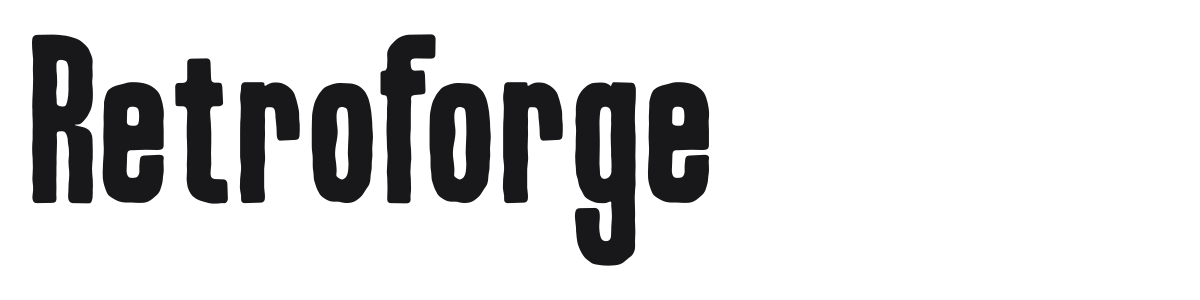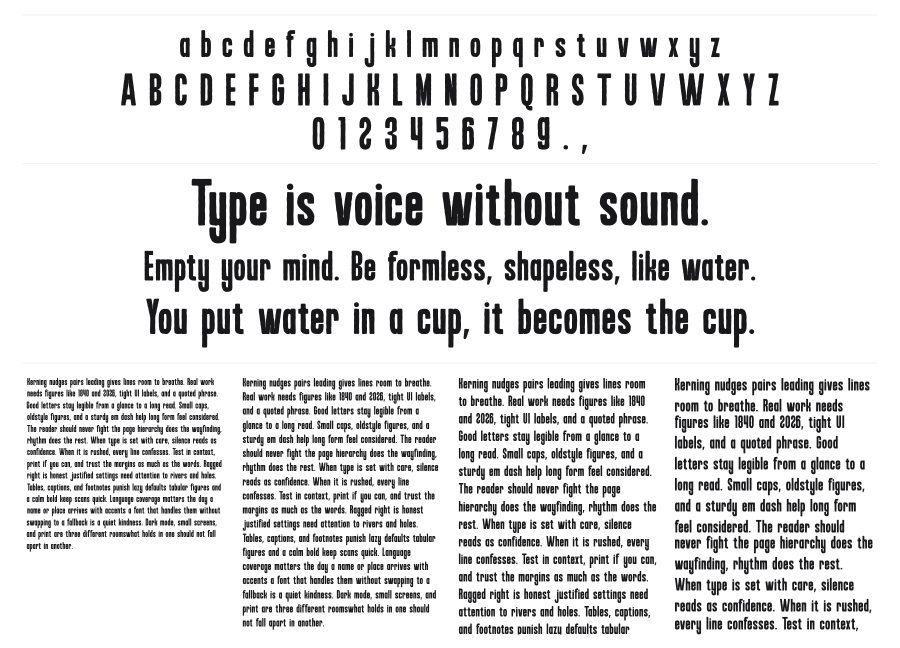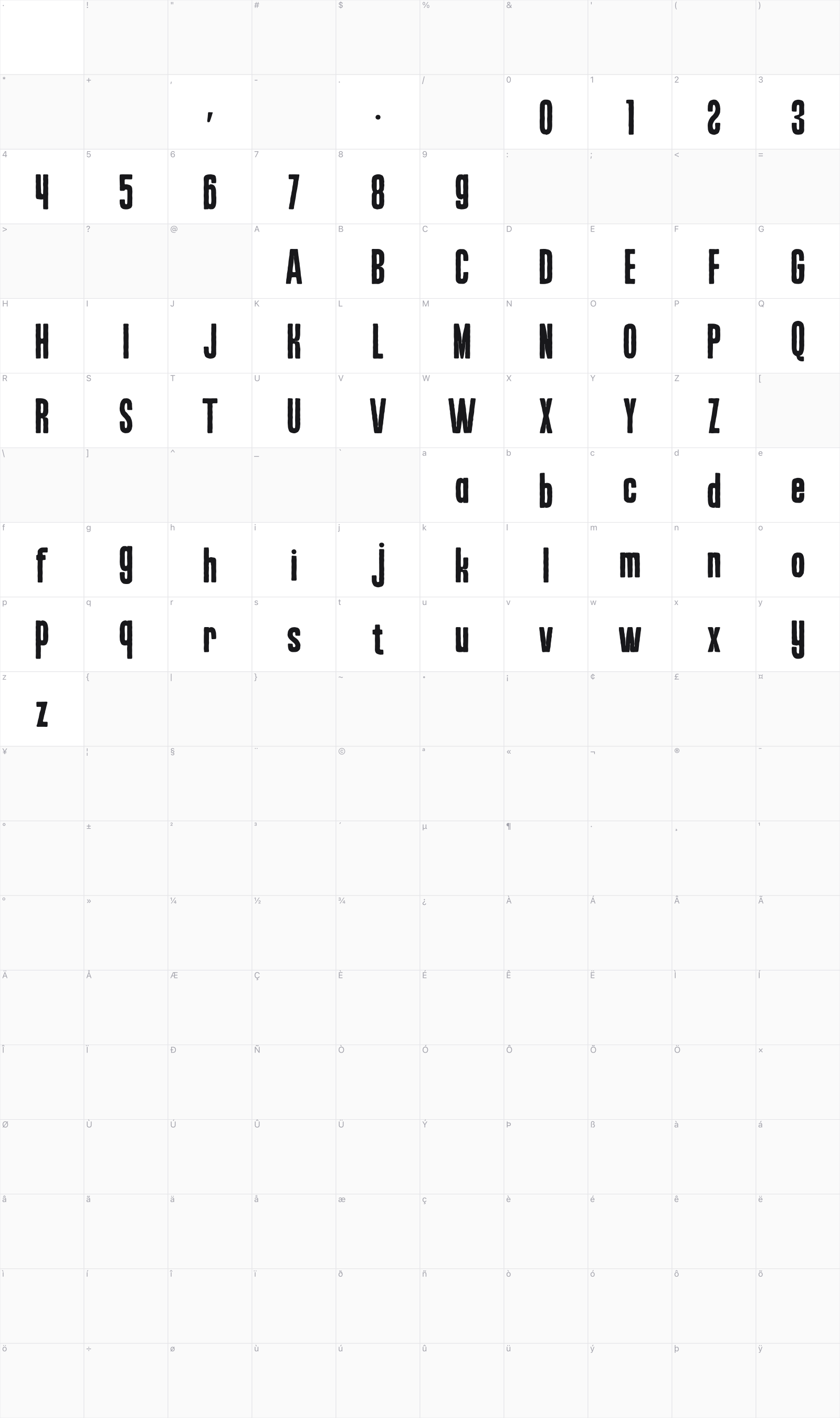
Retroforge
Retroforge is a heavy condensed sans with a roughened, vintage-industrial edge that recalls hand-painted signage and old workshop stencils. The extreme weight and tight proportions pack serious visual impact at headline sizes. A strong pick for labels, posters, and any branding that needs that worn, authentic feel.